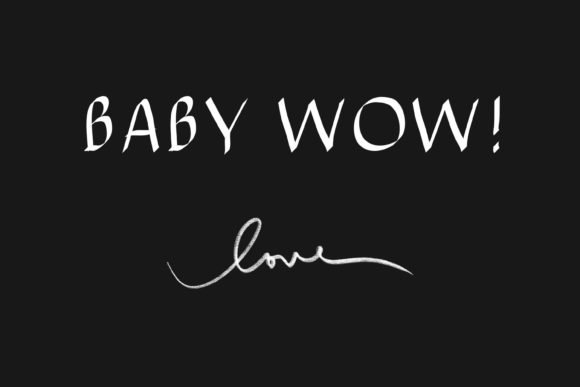
Discover the Magic of Handwritten Charm with Baby Wow Font
You know that feeling when you’re brainstorming a new project and suddenly, an idea just clicks? The creative juices start flowing, and you can almost see the design taking shape in your mind. For designers, this moment is pure magic, and it’s exactly what makes the Baby Wow Font so special.
With its simple and timeless handwritten design, the Baby Wow Font is perfect for adding a touch of youthful charm to your logos, t-shirts, and branding materials. Its versatility makes it a valuable tool for designers looking to elevate their creations and take their designs to the next level. Whether you’re working on a personal project or a client’s campaign, the Baby Wow Font is sure to bring a smile to your face and a dash of personality to your design.
Baby Wow Font Key Features
- Font Style: Handwritten, Script Font
- Unique Characteristics: Whimsical, playful, and elegant, perfect for baby-related designs, wedding invitations, and creative projects.
- Font Weight: Regular, Bold
- Two font weights to choose from, adding flexibility to your designs.
Baby Wow Font Review
Overall, I have mixed feelings about the Baby Wow Font. On one hand, it has some great qualities that make it stand out.
- Unique and playful design: The font’s rounded edges and whimsical feel make it perfect for child-related projects or brands targeting a younger audience.
- Highly customizable: With a wide range of weights, styles, and glyphs, you can easily adapt the font to suit your design needs.
- Works well in digital formats: The font renders well on various devices and screens, ensuring a smooth user experience.
- Limited versatility: Due to its playful nature, the font might not be suitable for formal or professional projects, which could limit its use.
- Not ideal for small text: The font’s rounded edges can make it difficult to read when used in small sizes or dense text blocks.
Overall, the Baby Wow Font is a fun and creative option for designers looking to add a playful touch to their projects. However, its limitations might make it less suitable for certain applications.
The Baby Wow Font is ideal for creating playful and whimsical designs. Use it for:
– Children’s book covers and illustrations
– Party invitations and decorations
– Branding and marketing materials for kids’ products